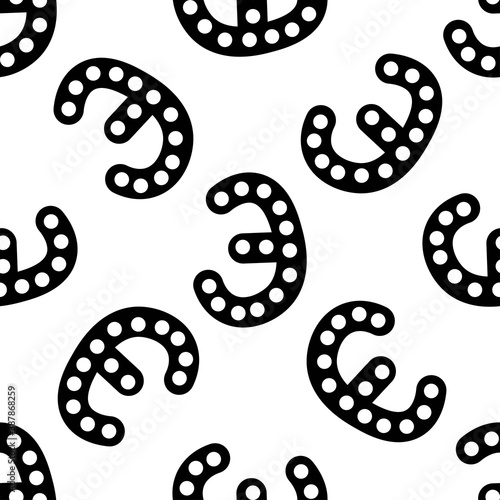
Outline seamless pattern with polka-dot russian alphabet letter on white background. Cute black and white font in flat style. Geometric letter print. Stock vector illustration for design, decor